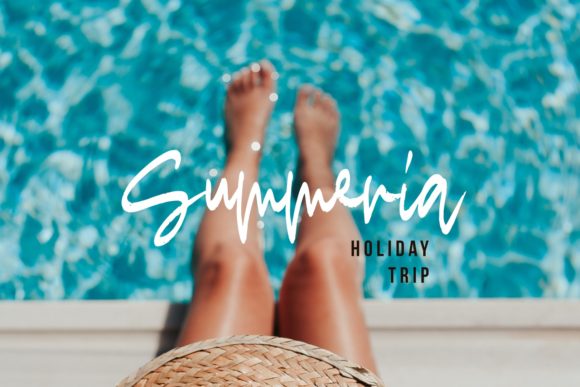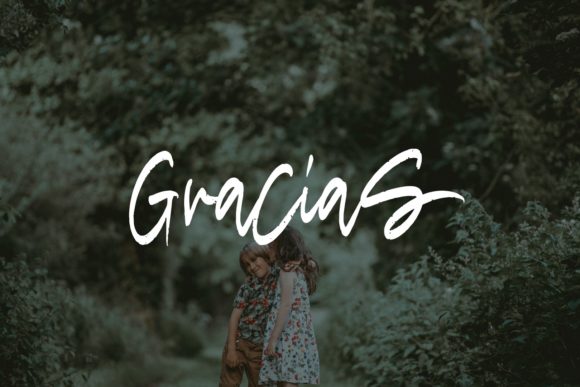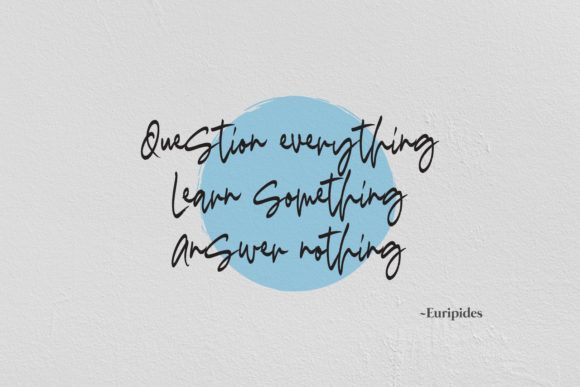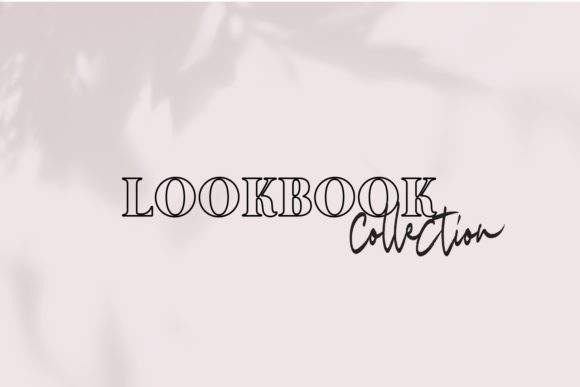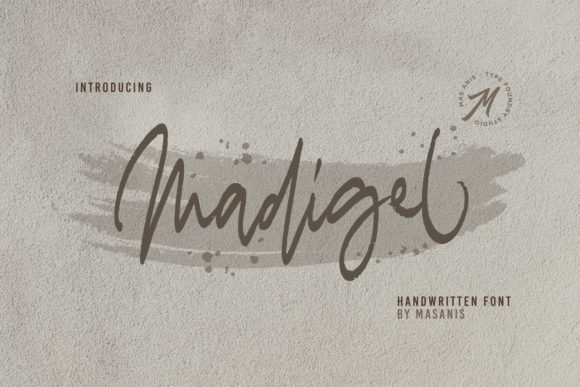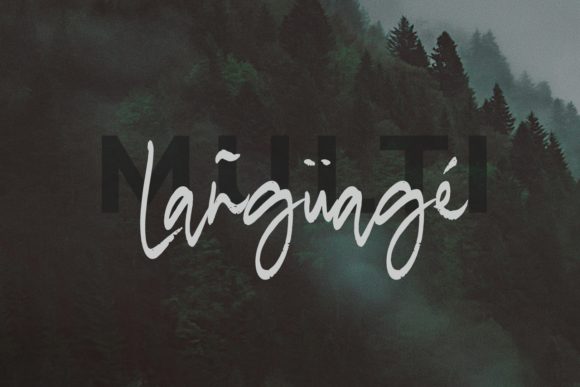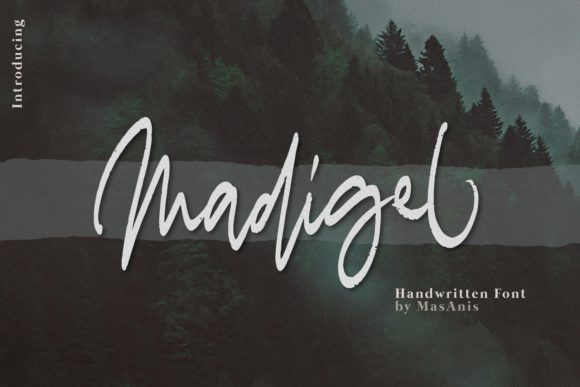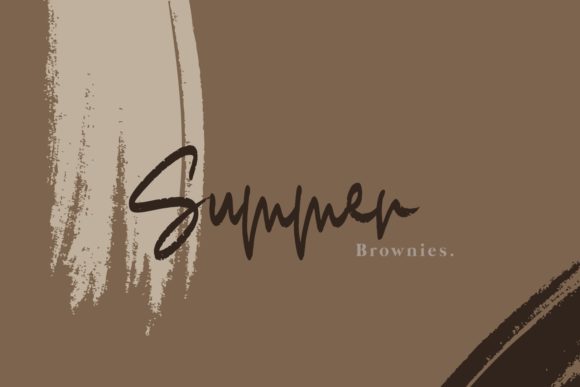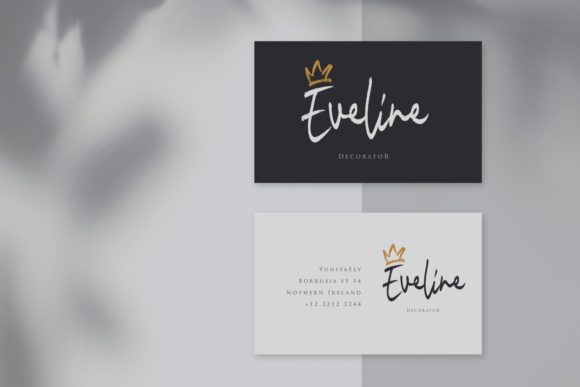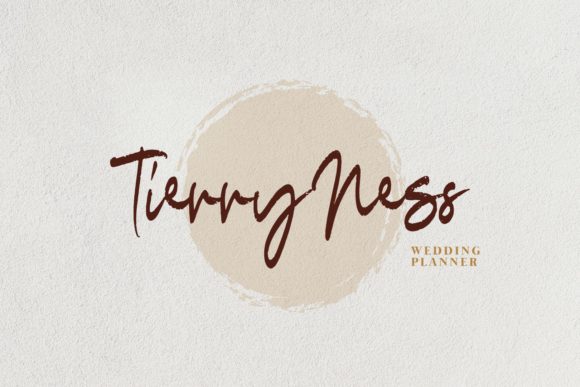
Madigel Font
About Madigel Font
Madigel is a sweet and cool handwritten font with a casual feel. Use it to add a personal charm to any design project!